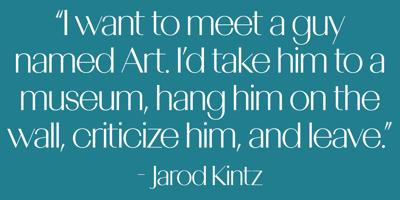
Berlinette NB Free Download
Add elegance and modern sophistication to your designs with Berlinette NB Font Free Download. This refined sans-serif typeface features clean lines, geometric shapes, and a balanced, minimalist style—perfect for branding, logos, editorial design, packaging, and website design. Berlinette NB Font Free Download combines contemporary simplicity with versatility, making it ideal for both digital and print projects.
The sleek and modern design of Berlinette NB Font ensures excellent readability, making it suitable for a wide range of creative applications. Whether you're designing corporate materials, social media content, or stylish marketing collateral, this font adds a professional, polished touch.